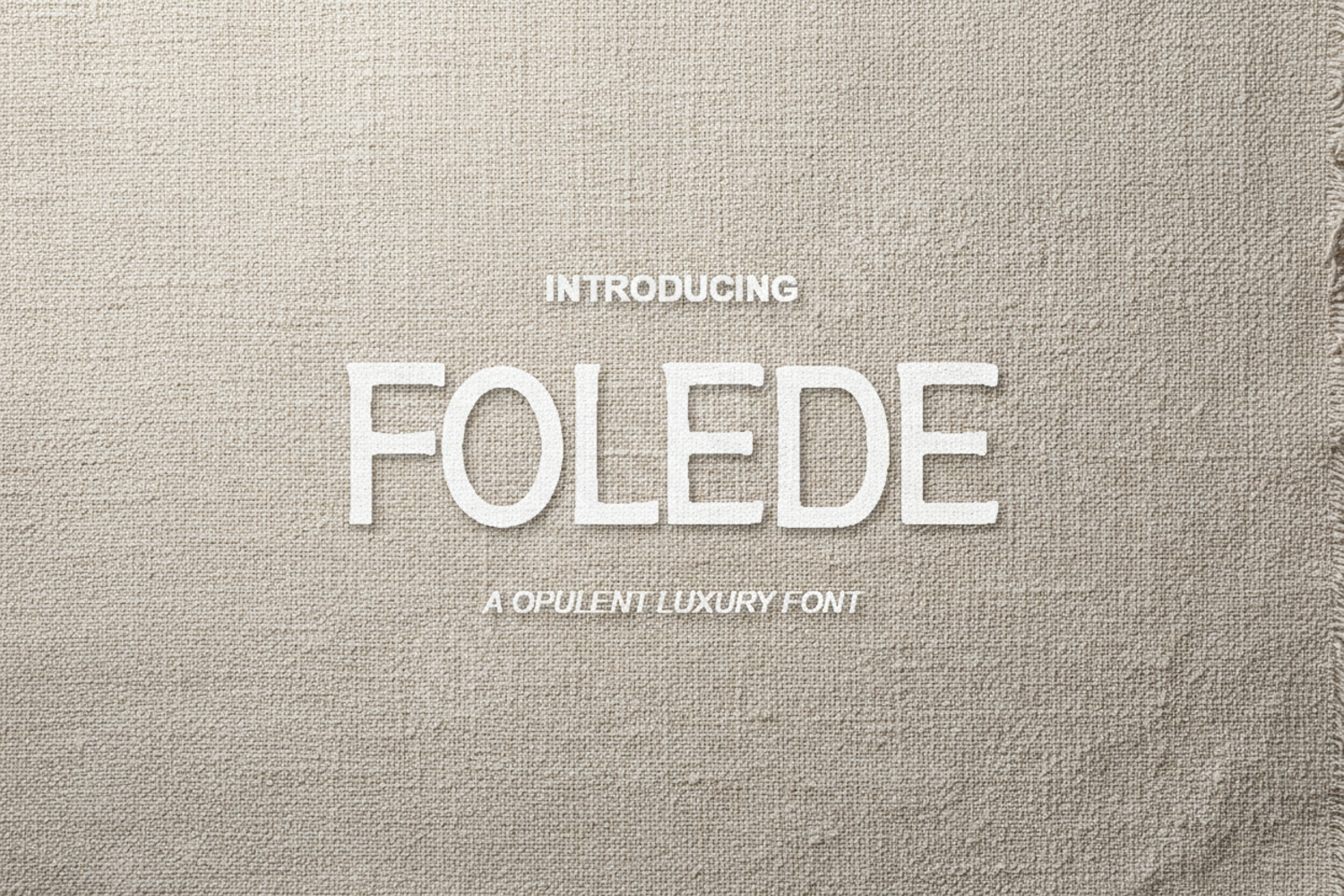
Folede - Elegant Modern Sans Serif Typeface
Folede
Folede is a premium sans serif font that embodies sophistication and modern minimalism. Crafted with precise geometric balance and clean lines, this typeface is designed to elevate any creative project with a professional touch. Whether you are building a high-end brand identity or a sleek digital interface, Folede provides the versatility and clarity required for modern design standards.
- Premium Branding and Visual Identity
- Minimalist Logo Design
- Editorial Layouts and Magazine Headers
- Social Media Marketing and Advertising
- Modern Website Interfaces
- Product Packaging and Stationery